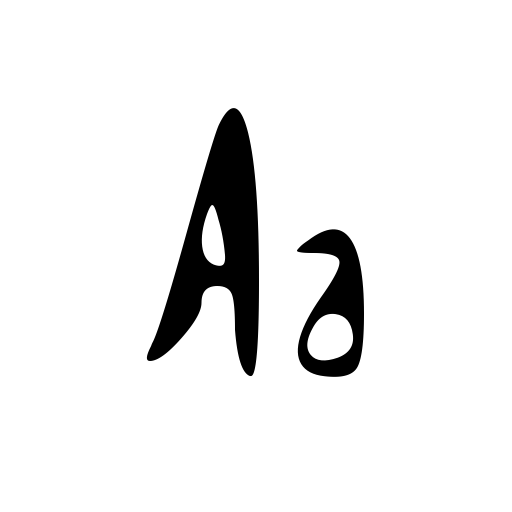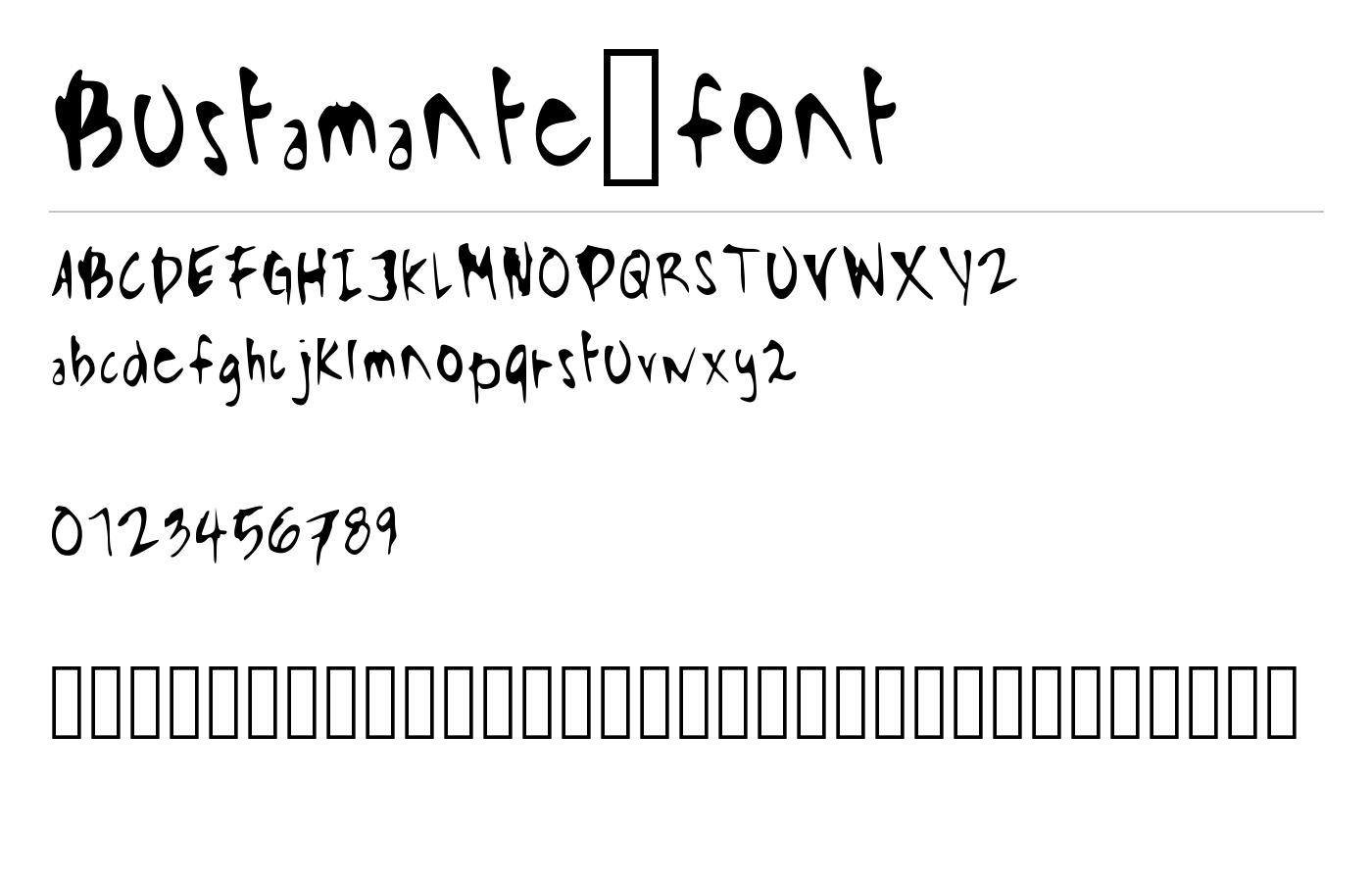
Bustamante is a quirky, hand-drawn sans serif font with irregular shapes and a playful, artistic vibe. Its uneven strokes and unique letterforms give it a casual, expressive look that works well for creative projects, informal branding, and designs seeking a distinctive, personal touch. This font shines in logos, posters, and headings where personality and originality are key.